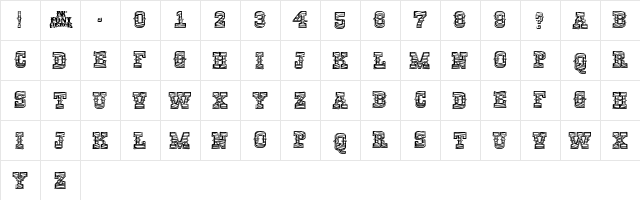
ViaGrande Stripe Bold
Design Context for ViaGrande Stripe Typeface
ViaGrande Stripe is a composed and adaptable typeface that performs quietly and consistently across a wide range of design contexts. Its bold stroke weight gives it real presence on the page.